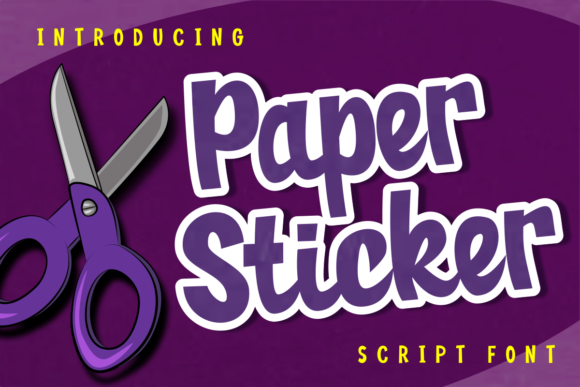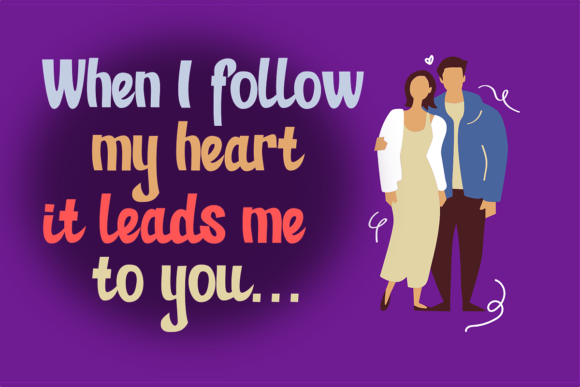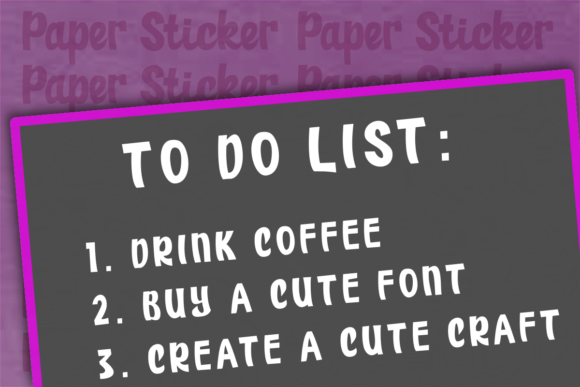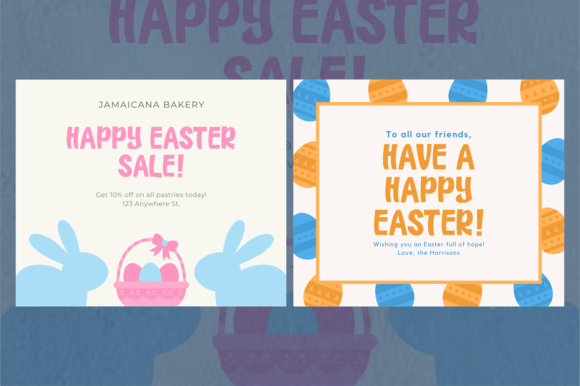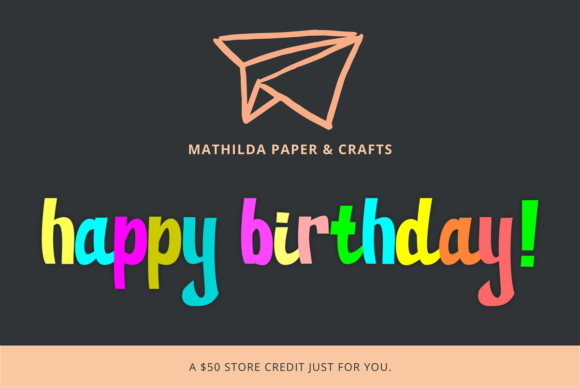
Paper Sticker Font
About Paper Sticker Font
Paper sticker is a bold handwritten font, carefully handcrafted to become a true favorite. Get creative with this awesome font, and use it to brighten up all of your projects!